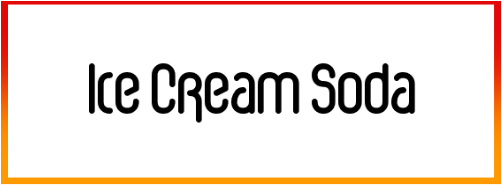
Vaguely Fatal
Vaguely Fatal is a fancy font (2010). Bold and full of character, it's built to stand out rather than blend in. You can download it for free and test it with your own words in the preview above.
What You Can Type With Vaguely Fatal
With complete upper and lowercase letters and all ten digits, Vaguely Fatal is ready for real wording, not just a single headline. Common punctuation such as &, !, ? and @ is included as well. It also has the accented letters you need for Spanish, French, German, Portuguese and Italian.
Where Vaguely Fatal Works Best
Think of Vaguely Fatal for posters, logos and eye-catching headlines. The file has no kerning data, so in logos and big titles check pairs like AV, To and Wa and tighten the spacing by hand. Use it for one standout word or headline and let simpler fonts handle the rest.
Does Vaguely Fatal support accented letters?
Yes. Vaguely Fatal includes the accented letters needed for Spanish, French, German, Portuguese and Italian, so it works for more than just English.